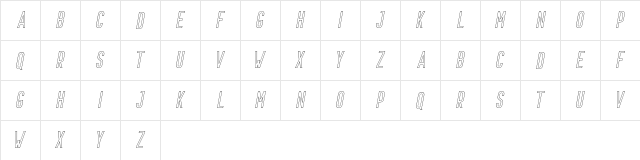
Prestage Outline Italic
| Foundry | Craft Supply Co. |
Design Context for Prestage Typeface
Prestage is built around its visual character rather than neutral utility — its distinctive forms are designed to make an impression at display sizes. Its italic angle brings a sense of urgency and motion to the letterforms.
Font Pairing: Pair with a clean neutral sans-serif for body copy to let Prestage's character lead without overwhelming the composition.
Pro Tip: Treat Prestage as the centrepiece of your typographic hierarchy. One strong heading set in a decorative face can carry an entire layout.